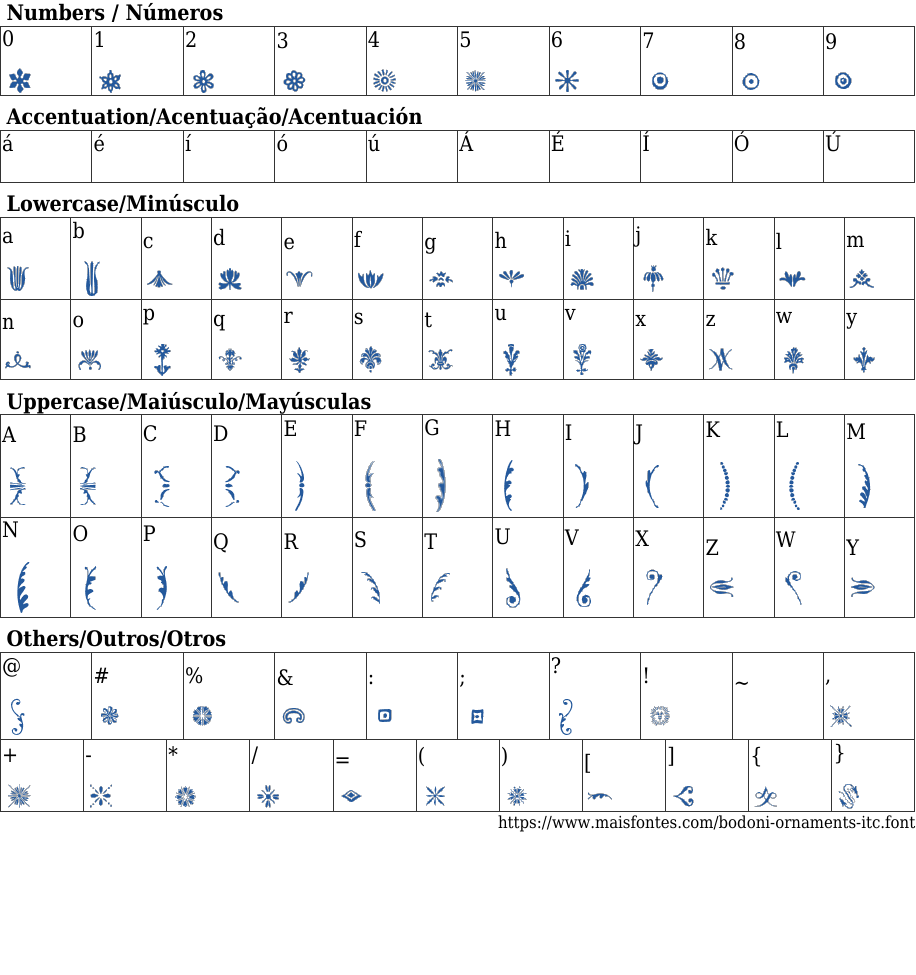
Bodoni Ornaments Font . Installable on pc, mac, linux, ios, and android platforms. Itc bodoni includes regular, bold, italics, old style figures, small caps, and italic swash fonts. Discover the free bodoni ornaments itc font at free font download ! Sumner stone created the ornaments based on. Free fonts by category, type, daily updates. Fonts in use is a. Giambattista bodoni passed away in 1813, this decorative version was created in the 1820’s or. We have selected the best bodoni ornaments fonts for download and experimentation. Itc bodoni six (1) itc bodoni twelve (1) get the fonts. Fonts are in ttf, otf format and with direct download link and preview. Share your examples of fontsin use. View sample text, character map, user rating and review for bodoni ornaments itc regular. Bodoni ornamental is a revival of a very old typeface based on the poster bodoni letter shape.
Share your examples of fontsin use. Fonts in use is a. Itc bodoni six (1) itc bodoni twelve (1) get the fonts. Installable on pc, mac, linux, ios, and android platforms. Sumner stone created the ornaments based on. Free fonts by category, type, daily updates. Itc bodoni includes regular, bold, italics, old style figures, small caps, and italic swash fonts. Bodoni ornamental is a revival of a very old typeface based on the poster bodoni letter shape. Fonts are in ttf, otf format and with direct download link and preview. Giambattista bodoni passed away in 1813, this decorative version was created in the 1820’s or.
Bodoni Ornaments Font Discover the free bodoni ornaments itc font at free font download ! Discover the free bodoni ornaments itc font at free font download ! Itc bodoni includes regular, bold, italics, old style figures, small caps, and italic swash fonts. Installable on pc, mac, linux, ios, and android platforms. Giambattista bodoni passed away in 1813, this decorative version was created in the 1820’s or. Free fonts by category, type, daily updates. We have selected the best bodoni ornaments fonts for download and experimentation. Fonts in use is a. Share your examples of fontsin use. Sumner stone created the ornaments based on. View sample text, character map, user rating and review for bodoni ornaments itc regular. Itc bodoni six (1) itc bodoni twelve (1) get the fonts. Fonts are in ttf, otf format and with direct download link and preview. Bodoni ornamental is a revival of a very old typeface based on the poster bodoni letter shape.
Bodoni Ornaments in use Typographic poster, Typeface, Typographic Bodoni Ornaments Font We have selected the best bodoni ornaments fonts for download and experimentation. Bodoni ornamental is a revival of a very old typeface based on the poster bodoni letter shape. Free fonts by category, type, daily updates. Itc bodoni includes regular, bold, italics, old style figures, small caps, and italic swash fonts. Installable on pc, mac, linux, ios, and android platforms.. Bodoni Ornaments Font.
Bodoni Ornaments ITC Regular Download For Free, View Sample Text Bodoni Ornaments Font Bodoni ornamental is a revival of a very old typeface based on the poster bodoni letter shape. We have selected the best bodoni ornaments fonts for download and experimentation. Installable on pc, mac, linux, ios, and android platforms. Share your examples of fontsin use. Giambattista bodoni passed away in 1813, this decorative version was created in the 1820’s or. View. Bodoni Ornaments Font.
Bodoni Font FREE Download FontSwan Bodoni Ornaments Font Free fonts by category, type, daily updates. Installable on pc, mac, linux, ios, and android platforms. Discover the free bodoni ornaments itc font at free font download ! Fonts are in ttf, otf format and with direct download link and preview. We have selected the best bodoni ornaments fonts for download and experimentation. Fonts in use is a. Itc bodoni. Bodoni Ornaments Font.
Bodoni Font, flower ornaments, leaf, text, monochrome png PNGWing Bodoni Ornaments Font Installable on pc, mac, linux, ios, and android platforms. View sample text, character map, user rating and review for bodoni ornaments itc regular. Free fonts by category, type, daily updates. Fonts are in ttf, otf format and with direct download link and preview. Bodoni ornamental is a revival of a very old typeface based on the poster bodoni letter shape.. Bodoni Ornaments Font.
Bodoni Ornaments Glyphs Ornaments, Fonts, Typography fonts Bodoni Ornaments Font Bodoni ornamental is a revival of a very old typeface based on the poster bodoni letter shape. Fonts are in ttf, otf format and with direct download link and preview. Itc bodoni includes regular, bold, italics, old style figures, small caps, and italic swash fonts. We have selected the best bodoni ornaments fonts for download and experimentation. Free fonts by. Bodoni Ornaments Font.